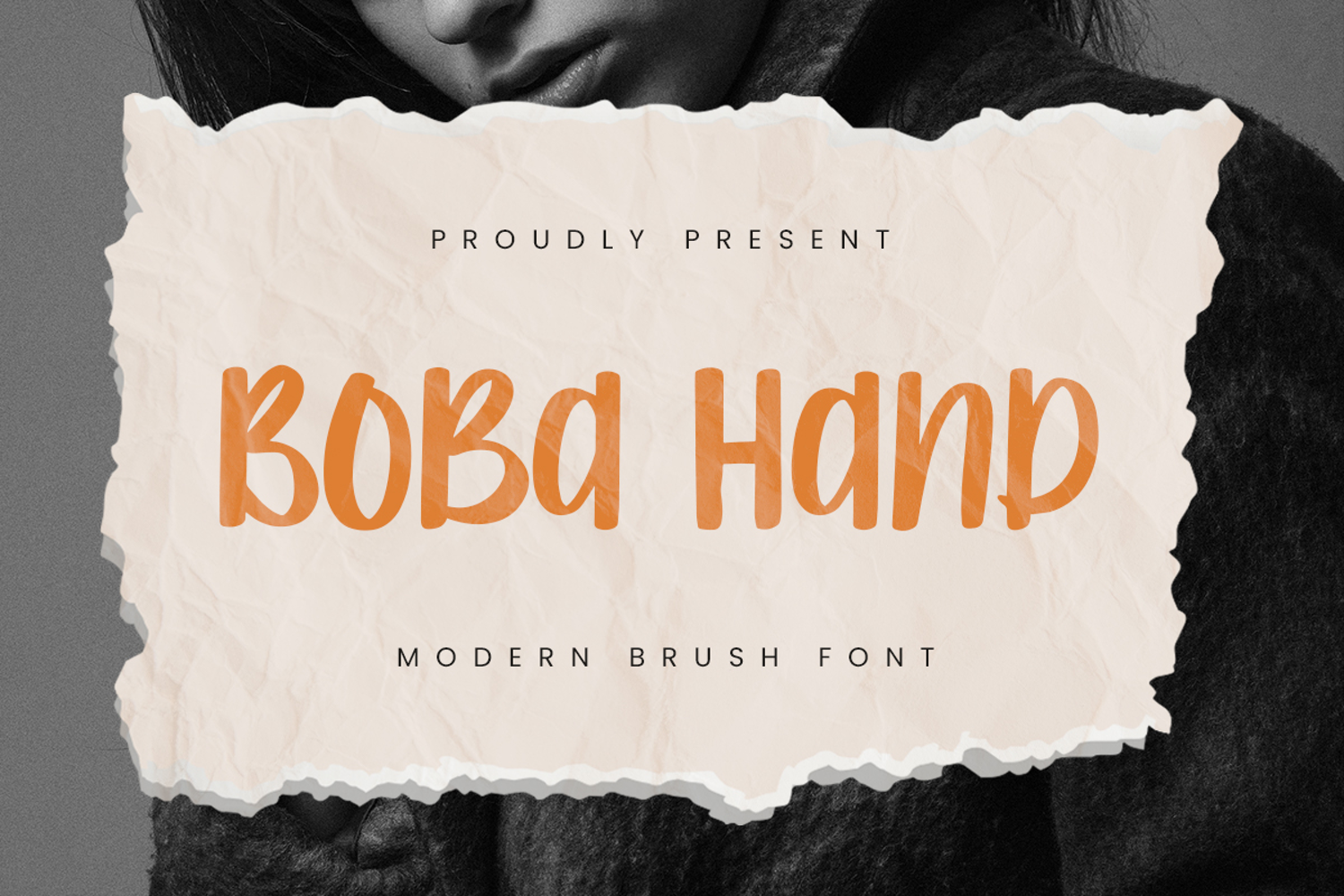
BOBA HAND || modern playful
BOBA HAND is a modern brush font that's playful, soft, and full of character. Each stroke conveys the feel of natural handwriting, making your designs appear more lively and welcoming. With its rounded, playful, and slightly textured letterforms, this font is perfect for a variety of visual needs that want to convey a warm and welcoming feel.
This font is ideal for beverage branding, food packaging, home product labels, posters, social media content, quotes, and other creative designs. BOBA HAND also features unique ligatures that make the letter combinations look more natural and aesthetic.
Bring fresh, modern energy to any project with BOBA HAND!